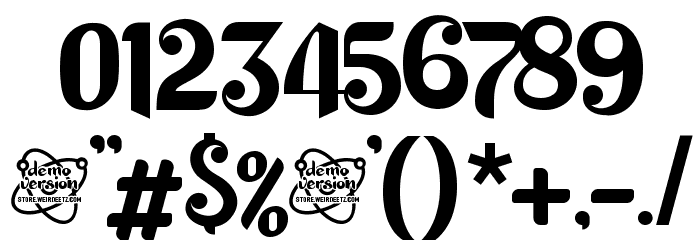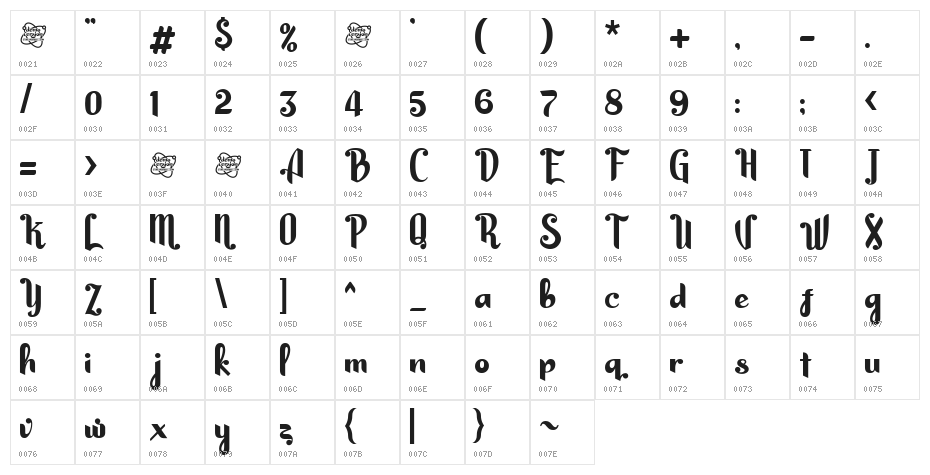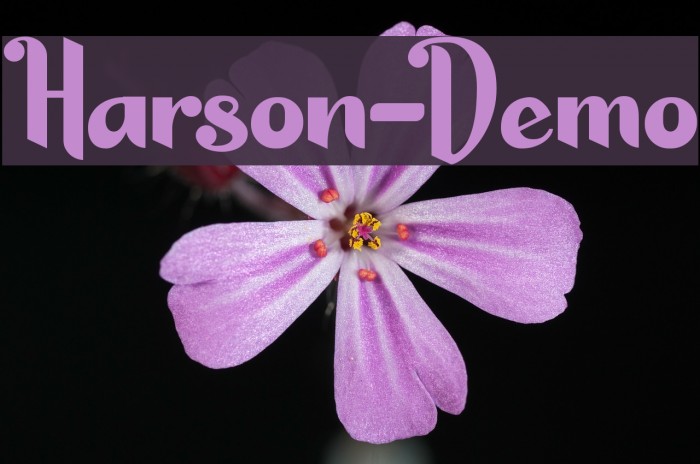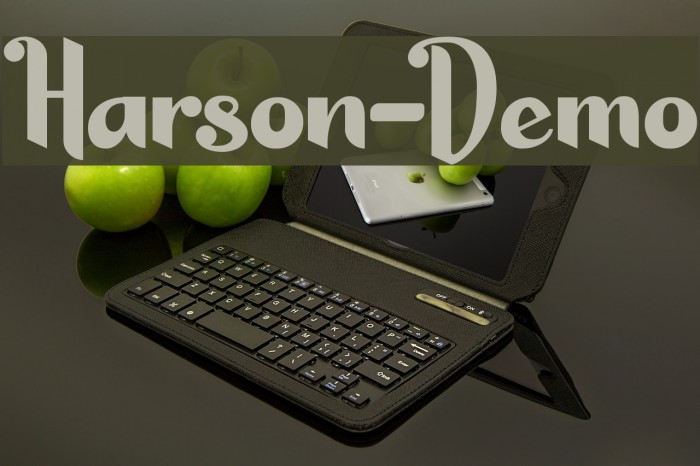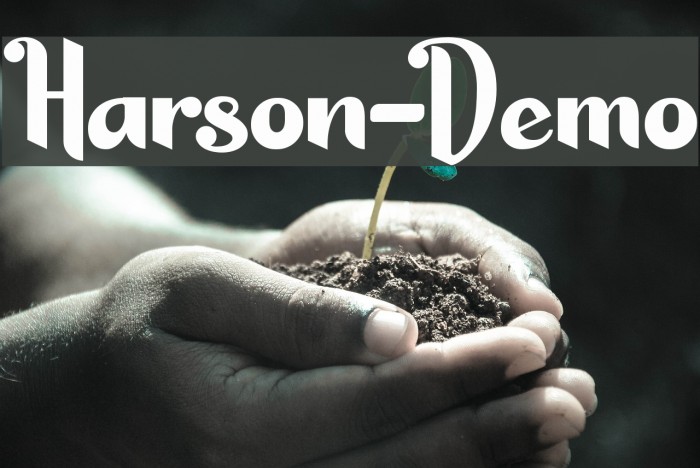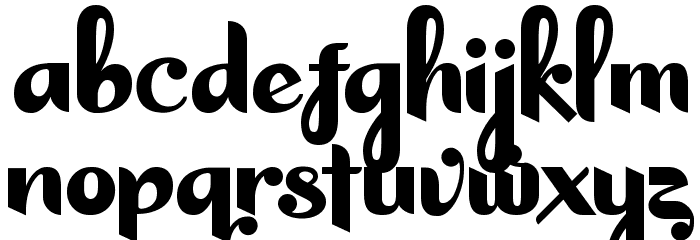
Harson-Demo Font
Harson-Demo Description
This font features a bold and decorative style with a unique flair. The characters are designed with high contrast and distinct curves, giving them a playful and artistic appearance. The uppercase letters are particularly ornate, with swirls and loops that add a touch of elegance and whimsy. The lowercase letters maintain a consistent style, complementing the uppercase with similar embellishments. Numbers and special characters are crafted with the same attention to detail, ensuring a cohesive look across all elements. This font is ideal for projects that require a bold and eye-catching typeface, such as posters, logos, and branding materials.
| Proposed Projects | Ideal for posters, logos, branding, and any project needing a bold, artistic touch. |